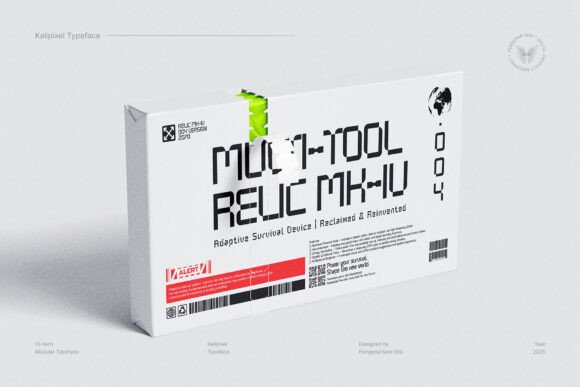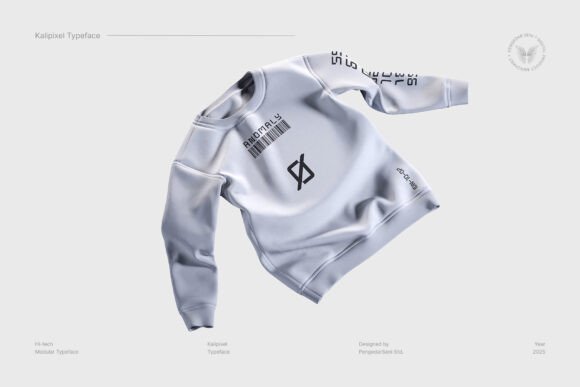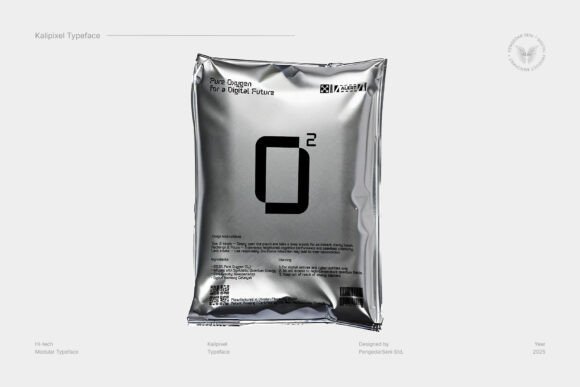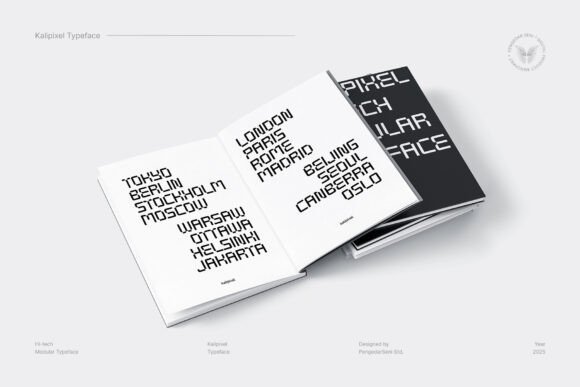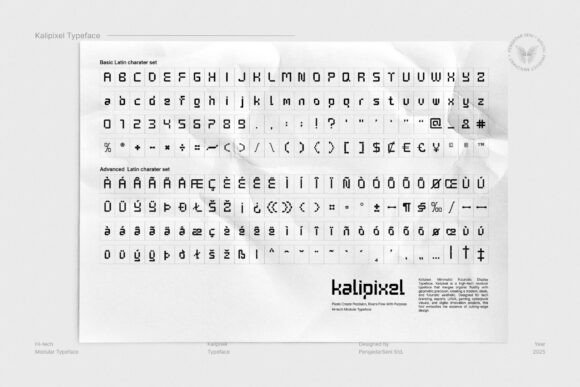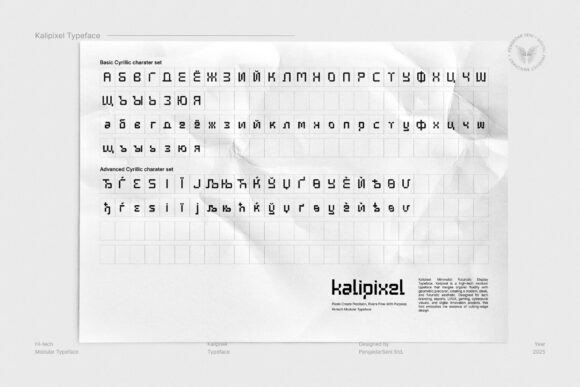
Introduction to Kalipixel Font
Imagine you’re scrolling through a futuristic sci-fi movie, and the sleek, neon-lit interface catches your eye. That’s the kind of visual impact the Kalipixel Font can bring to your creative project. As a designer, you’re always on the lookout for design resources that can elevate your work and make it stand out. This high-tech, minimalist typeface is the perfect addition to your toolkit, offering a unique blend of organic fluidity and geometric precision.
With its modular design and futuristic aesthetic, Kalipixel Font is ideal for tech branding, esports, UI/UX, gaming, and digital innovation projects. The name itself is a testament to its innovative spirit, combining the concepts of “Kali” (flow and adaptability) and “Pixel” (digital structure and precision). This bold, future-forward typeface is a valuable asset for designers who want to make a powerful, tech-driven impact.
Key Features of Kalipixel Font
- Designed to be highly legible and versatile, making it perfect for a wide range of creative projects, from branding to editorial design.
Honest Review: Kalipixel Font
I recently stumbled upon the Kalipixel Font, a free download that’s been a game-changer for my creative projects. As a designer, I’m always on the lookout for high-quality design resources that can elevate my work, and Kalipixel Font definitely delivers.
What works well is the font’s versatility – it’s perfect for a wide range of creative projects, from graphic design to digital art. The transparent background feature is also a major plus, allowing me to easily integrate the font into various designs.
- ✨ High-quality design with crisp lines and smooth typography
- ✨ Versatile and suitable for various creative projects
However, I do have some reservations about the font’s limitations. ⚠️ For one, the font family is relatively small, and there aren’t many variations to choose from. Additionally, the font may not be as readable at smaller font sizes.
Overall, I’m impressed with Kalipixel Font’s potential, and I’d definitely recommend it to fellow designers looking for a high-quality, free design resource. With a bit more development, I’m sure this font will become a staple in many design arsenals.
Kalipixel Font is a versatile and high-quality design resource that can elevate your creative projects. With its unique style and transparent background, it’s perfect for various design applications.
Tips for Getting the Most Out of Kalipixel Font
To get the most out of Kalipixel Font, experiment with different font sizes, colors, and combinations with other design elements. You can also use it for creating unique logos, icons, or graphics.
Kalipixel Font is perfect for various design applications, including business cards, brochures, social media graphics, and more. Its transparent background makes it easy to use in various design contexts.
Yes, the Kalipixel Font is designed to be highly legible and versatile, making it suitable for use in complex layouts and creative projects. However, please ensure that the font is scaled and formatted correctly to maintain its high quality and readability.